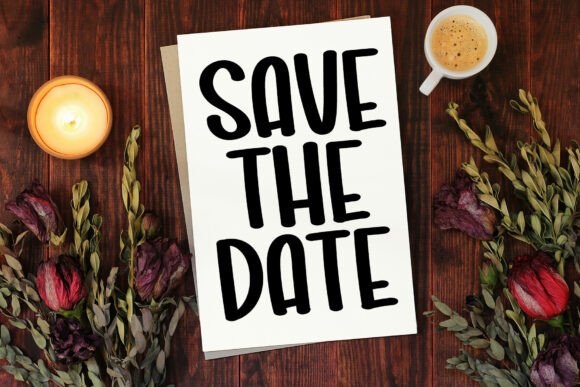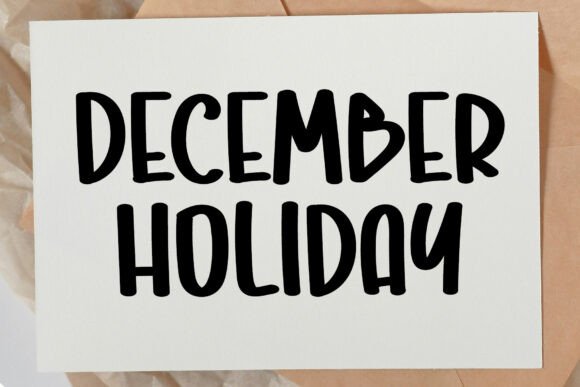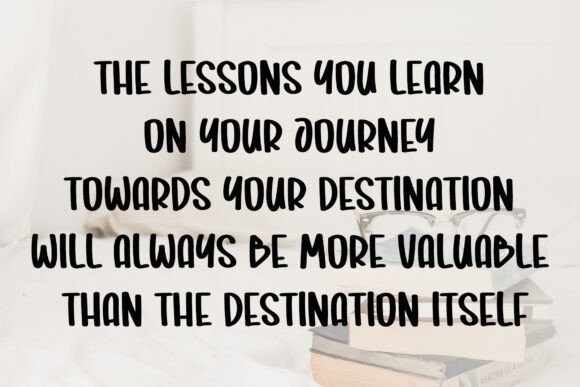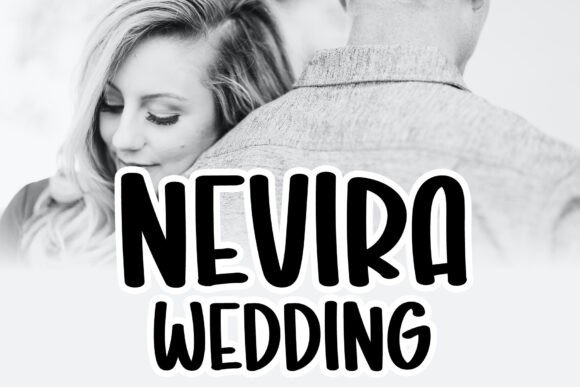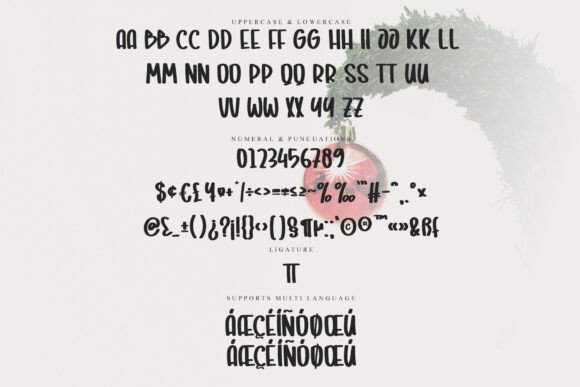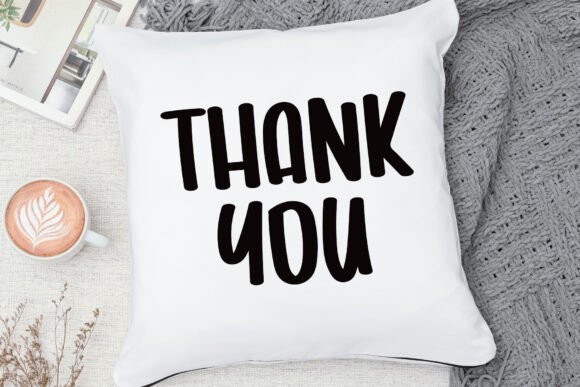
Introducing Backsight Font: The Ultimate Choice for Cheerful Designs
Are you tired of using the same old fonts for your designs? Do you want to add a touch of fun and quirkiness to your projects? Look no further than Backsight Font! This delightful display font is perfect for use on cheerful topics and is especially suitable for children’s themed designs. When combined with bright colors, Backsight Font is sure to make your designs pop!
What Makes Backsight Font So Special?
Backsight Font is a unique and playful font that is designed to bring a smile to your face. Its fun and quirky style makes it perfect for use on a wide range of projects, from children’s party invitations to educational materials, and even craft projects. The font’s playful nature makes it an excellent choice for designers and crafters who want to add a personal touch to their work.
Perfect for Children’s Themed Designs
Backsight Font is especially suitable for children’s themed designs, such as:
- Children’s party invitations
- Educational materials, such as worksheets and activity sheets
- Craft projects, such as DIY tutorials and patterns
- Kids’ apparel and accessories, such as t-shirts and tote bags
The font’s playful and cheerful style is sure to delight kids and parents alike, making it an excellent choice for any project aimed at a young audience.
Tips for Using Backsight Font
Here are a few tips for using Backsight Font in your designs:
- Pair Backsight Font with bright colors to create a fun and playful look
- Use the font in combination with other playful fonts to create a unique and eye-catching design
- Experiment with different font sizes and styles to add visual interest to your design
- Don’t be afraid to get creative and try new things – Backsight Font is designed to be fun and flexible!
Backsight Font is a fun and quirky display font that is perfect for use on cheerful topics. With its playful style and PUA encoding, it’s an excellent choice for designers and crafters who want to add a personal touch to their work. Whether you’re creating children’s themed designs, craft projects, or just want to add a touch of fun to your designs, Backsight Font is the ultimate choice. So why not give it a try and see what amazing designs you can create?
Key Features of Backsight Font
- Fun and quirky display font
- Perfect for use on cheerful topics
- Especially suitable for children’s themed designs